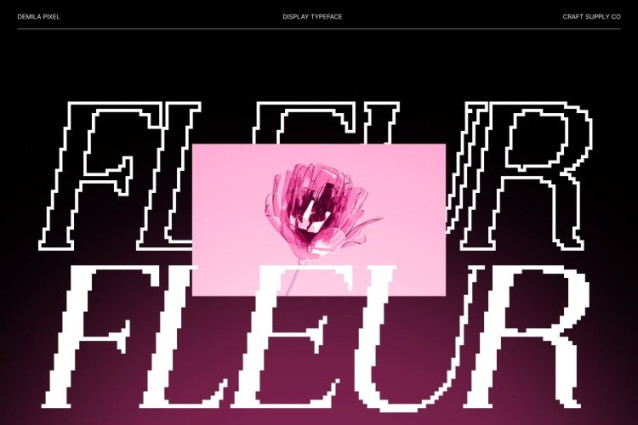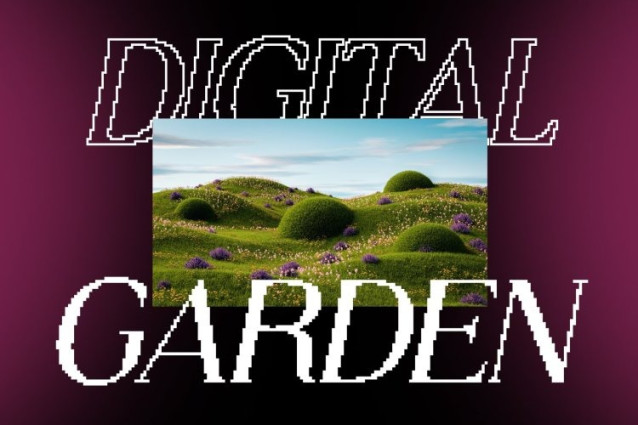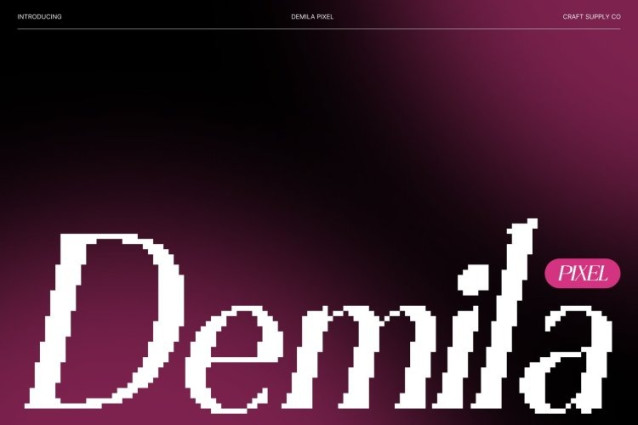
Demila Pixel Font
Demila Pixel Font This is a modern serif font designed for professional use, combining refined elegance with a subtle pixel character. Its sleek lines and precise digital detailing create a polished appearance that feels both sophisticated and contemporary.
Modern Serif with Digital Refinement
Built on clean proportions and timeless serif forms, this font offers a fresh interpretation of classic elegance. The pixel influence introduces a modern, technology-inspired nuance, enhancing its visual interest while maintaining a confident and professional aesthetic.
Perfect for Professional Applications
From corporate branding and logos to editorial layouts, websites, and business materials, this font delivers clarity and authority. Its elegant structure ensures strong readability, while the pixel detail adds a distinctive edge suited to modern digital environments.
Versatile, Clear, and Sophisticated
Despite its refined appearance, this font remains highly versatile and easy to use at both large and small sizes. Balancing modern serif elegance with pixel precision, this font elevates any project with professionalism, clarity, and contemporary sophistication.